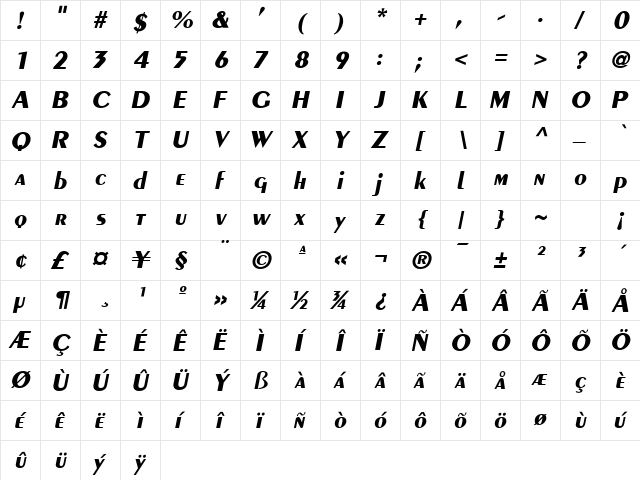
Penoir Bold-Oblique Font Preview
Penoir Bold-Oblique
Design Context for Penoir Typeface
Penoir is a composed and adaptable typeface that performs quietly and consistently across a wide range of design contexts. Its italic angle brings a sense of urgency and motion to the letterforms. Its bold stroke weight gives it real presence on the page.